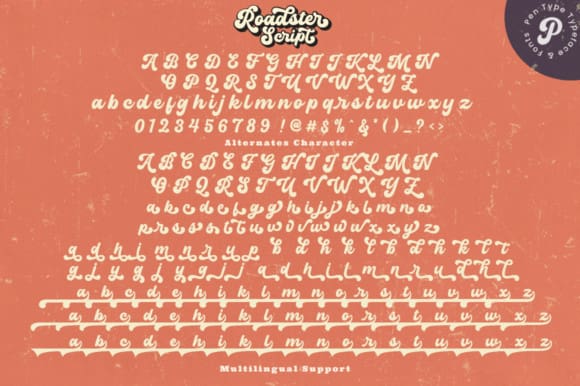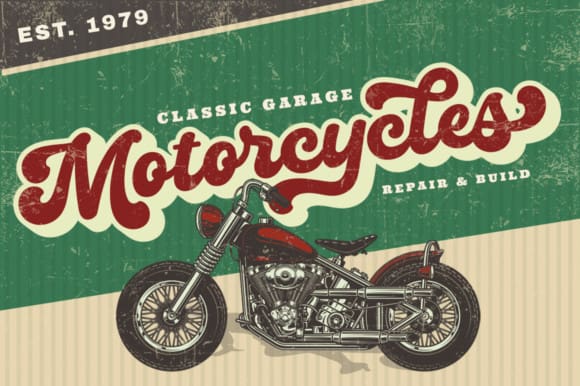
Roadster Script Font
Roadster Script Font is a bold, retro-style script font. This font is neatly crafted and very detailed. Whatever the topic, this font will be a great asset to your font library, as it has the potential to enhance any creation, especially retro designs. Fall in love with her voluptuous style and use it to create beautiful designs. This font is PUA coded which means you can access all the glyphs and swashes easily!